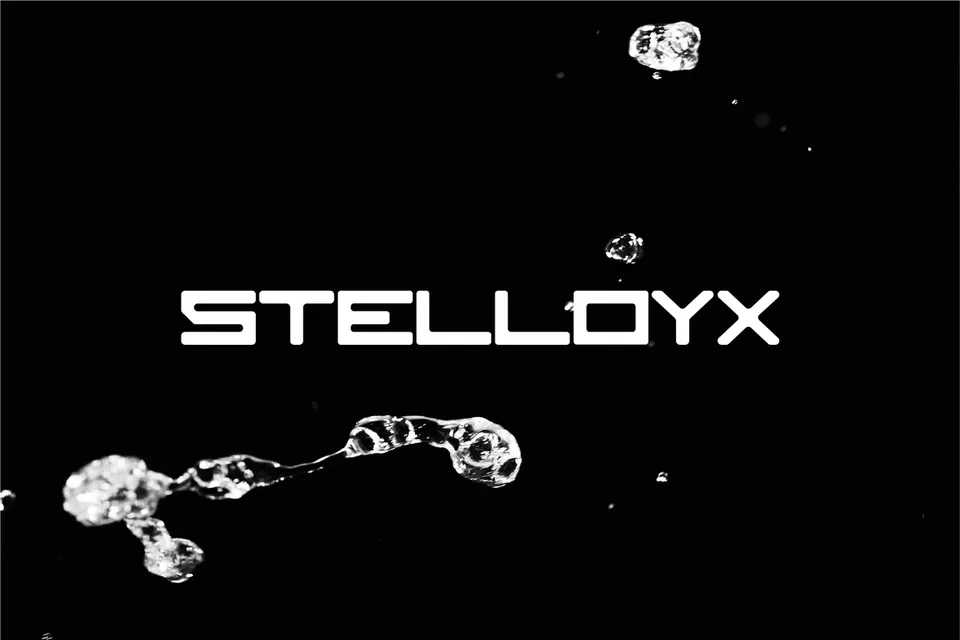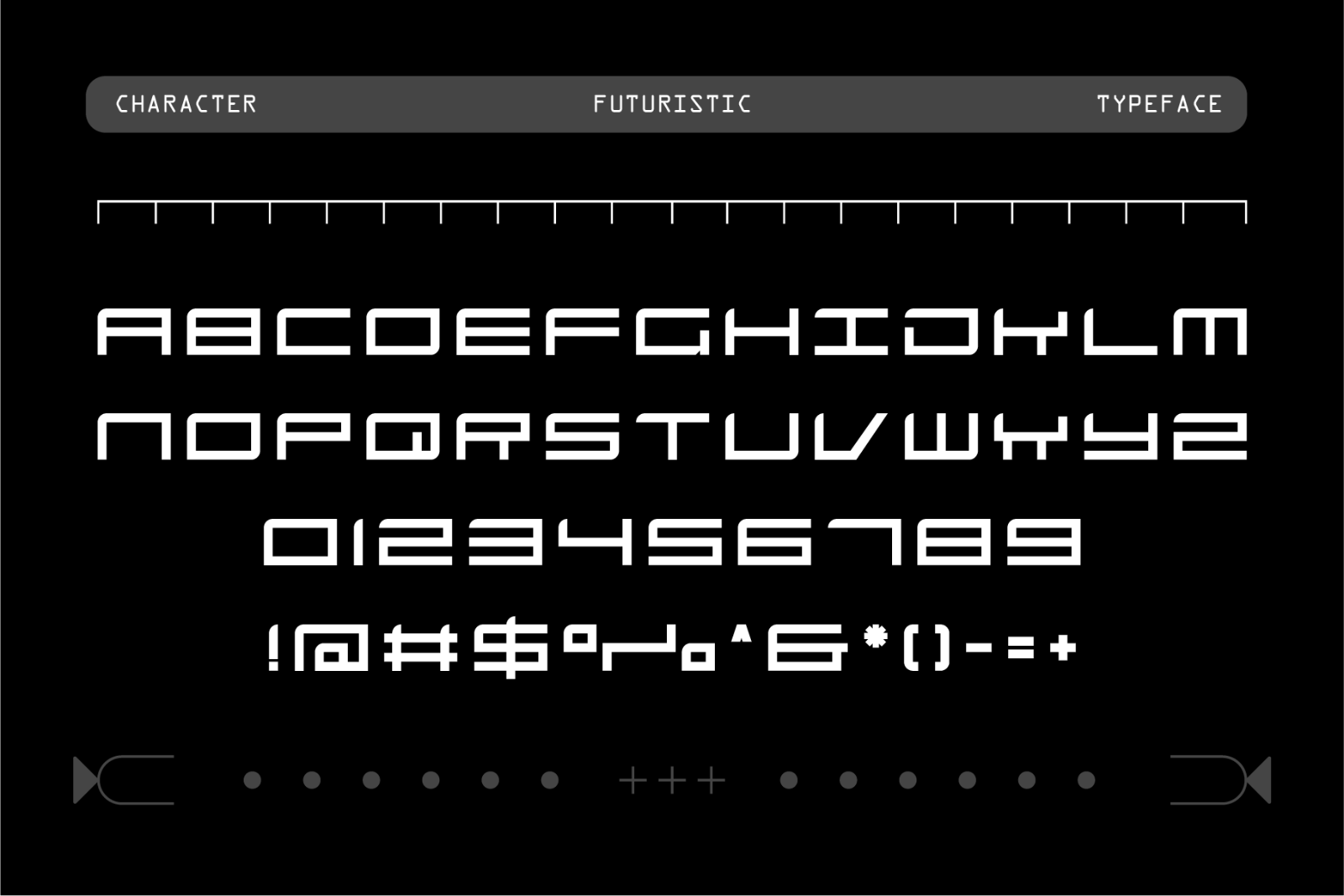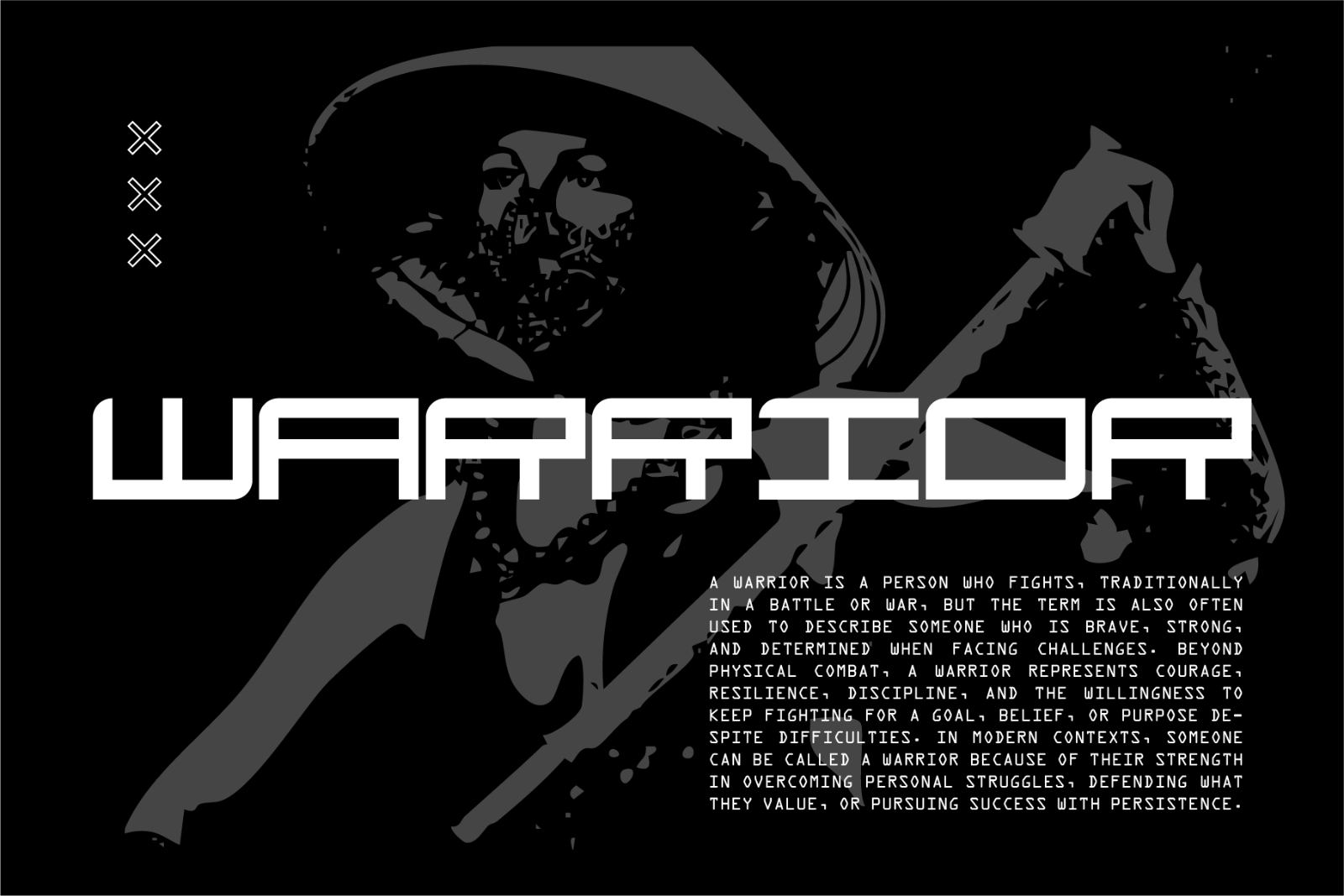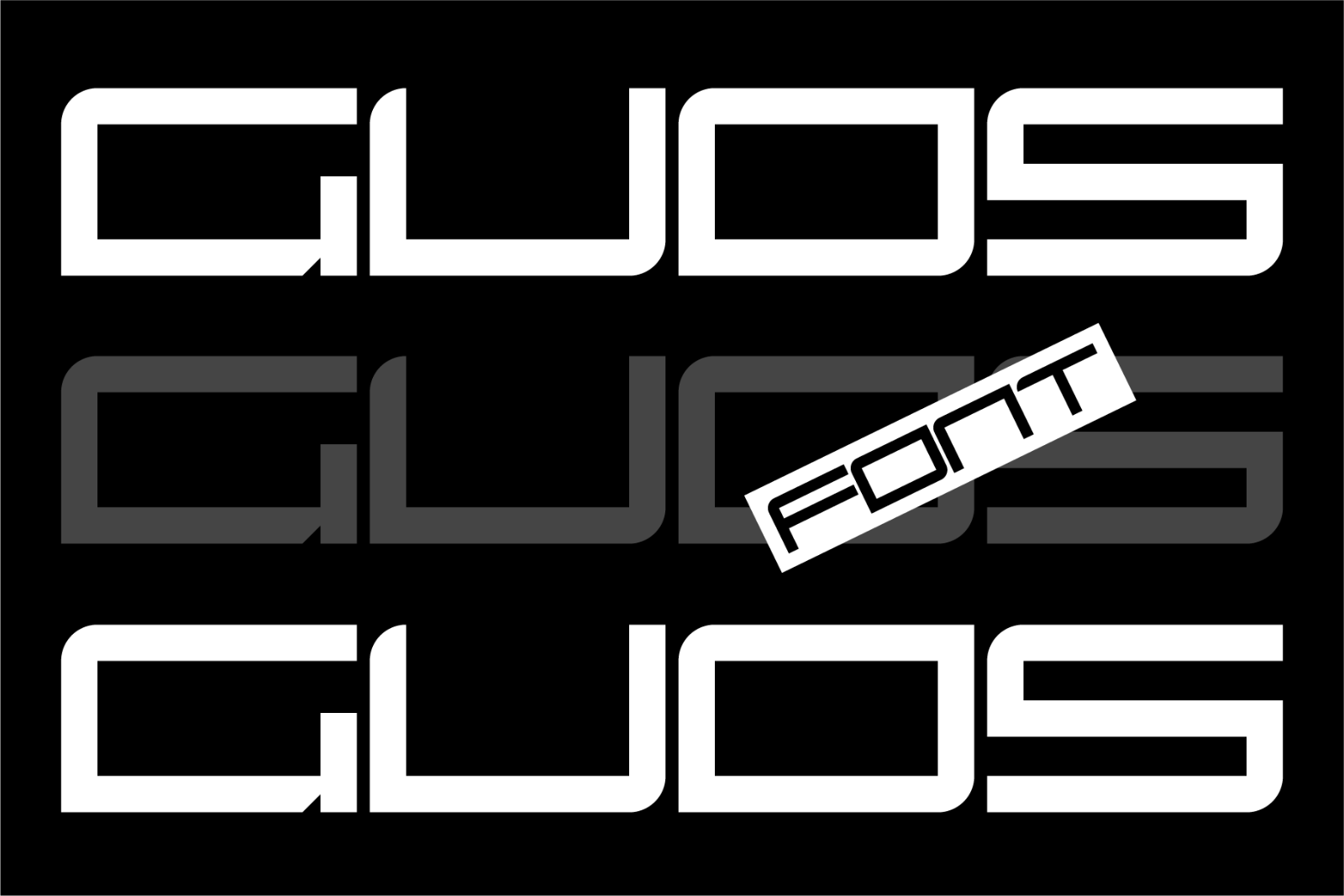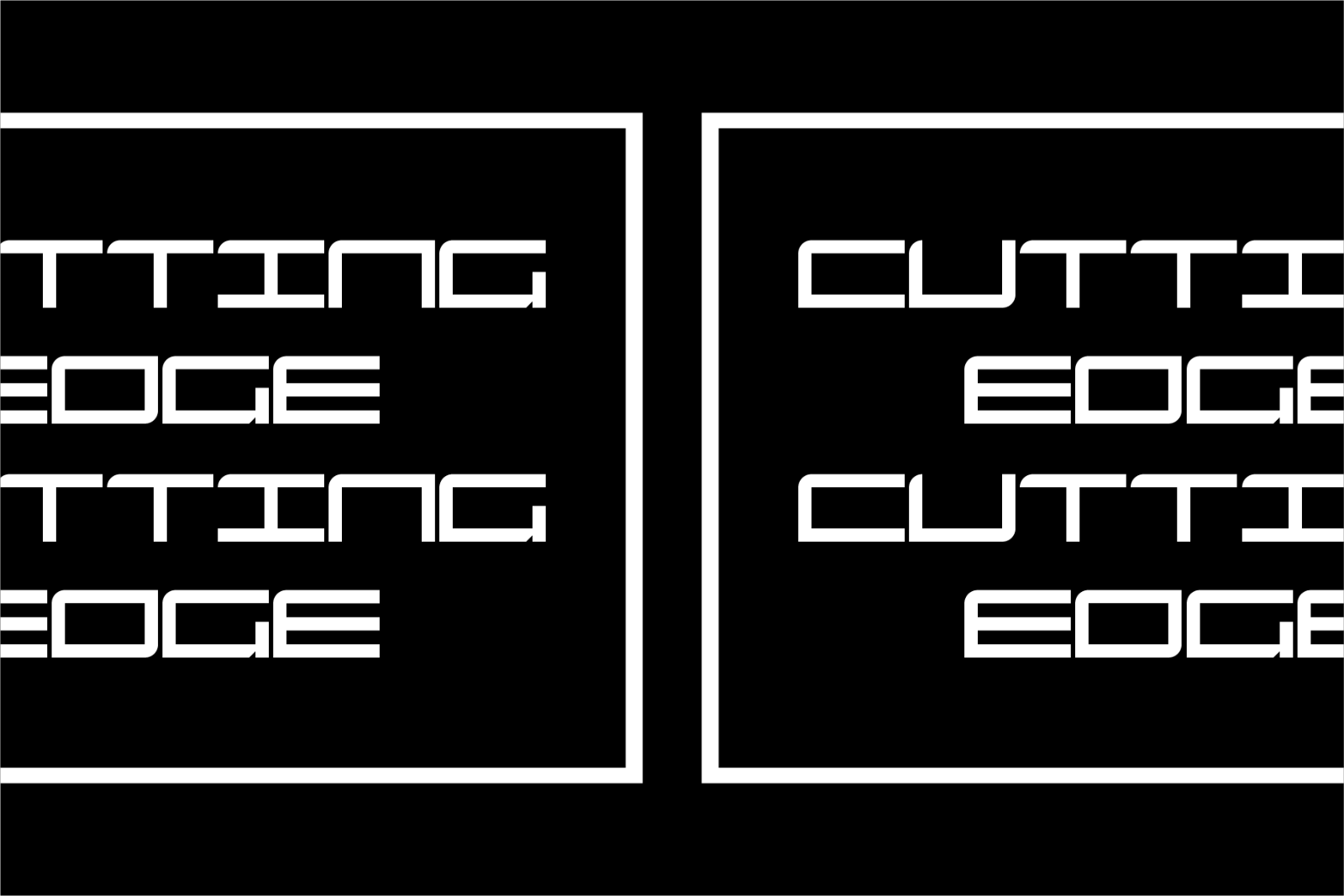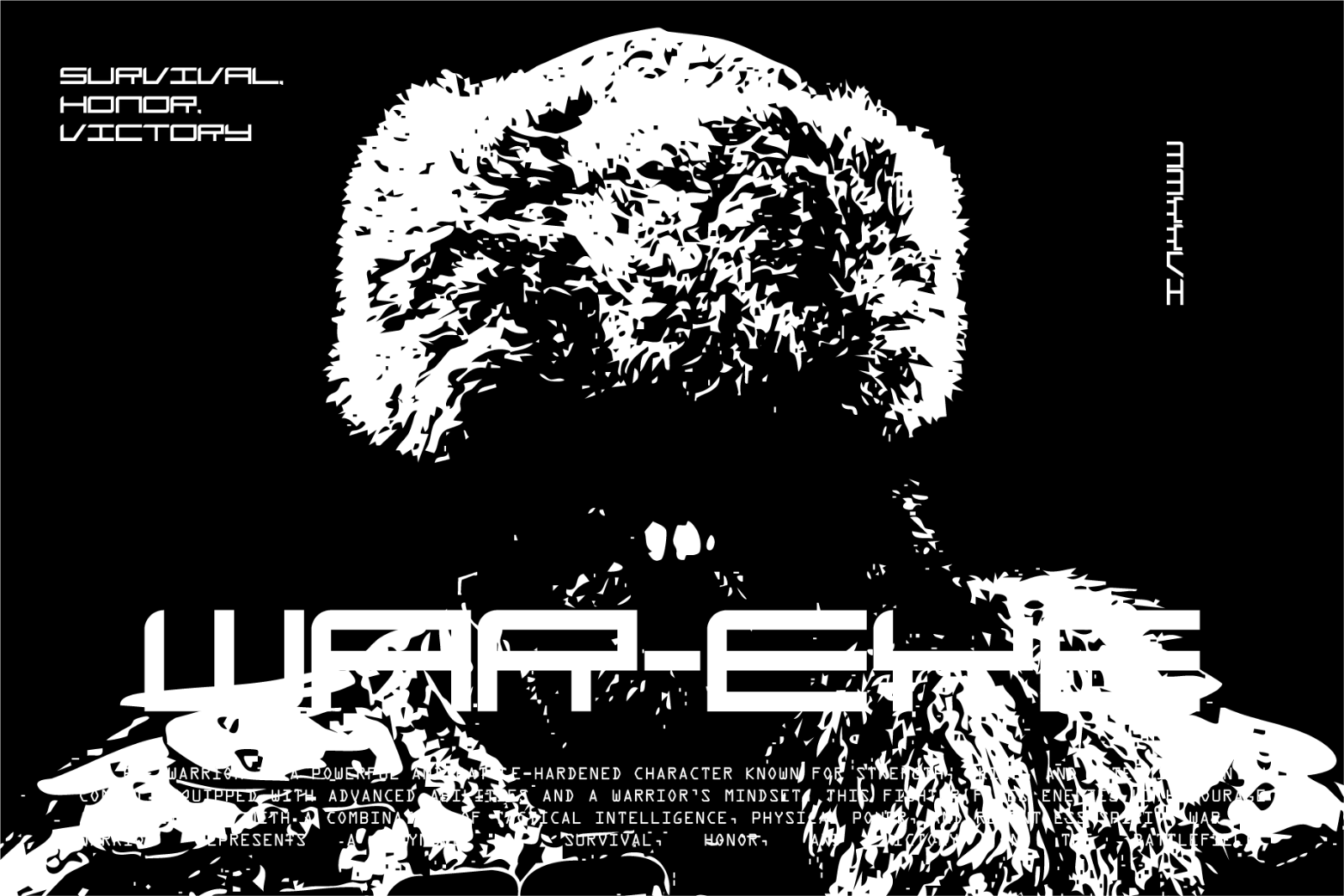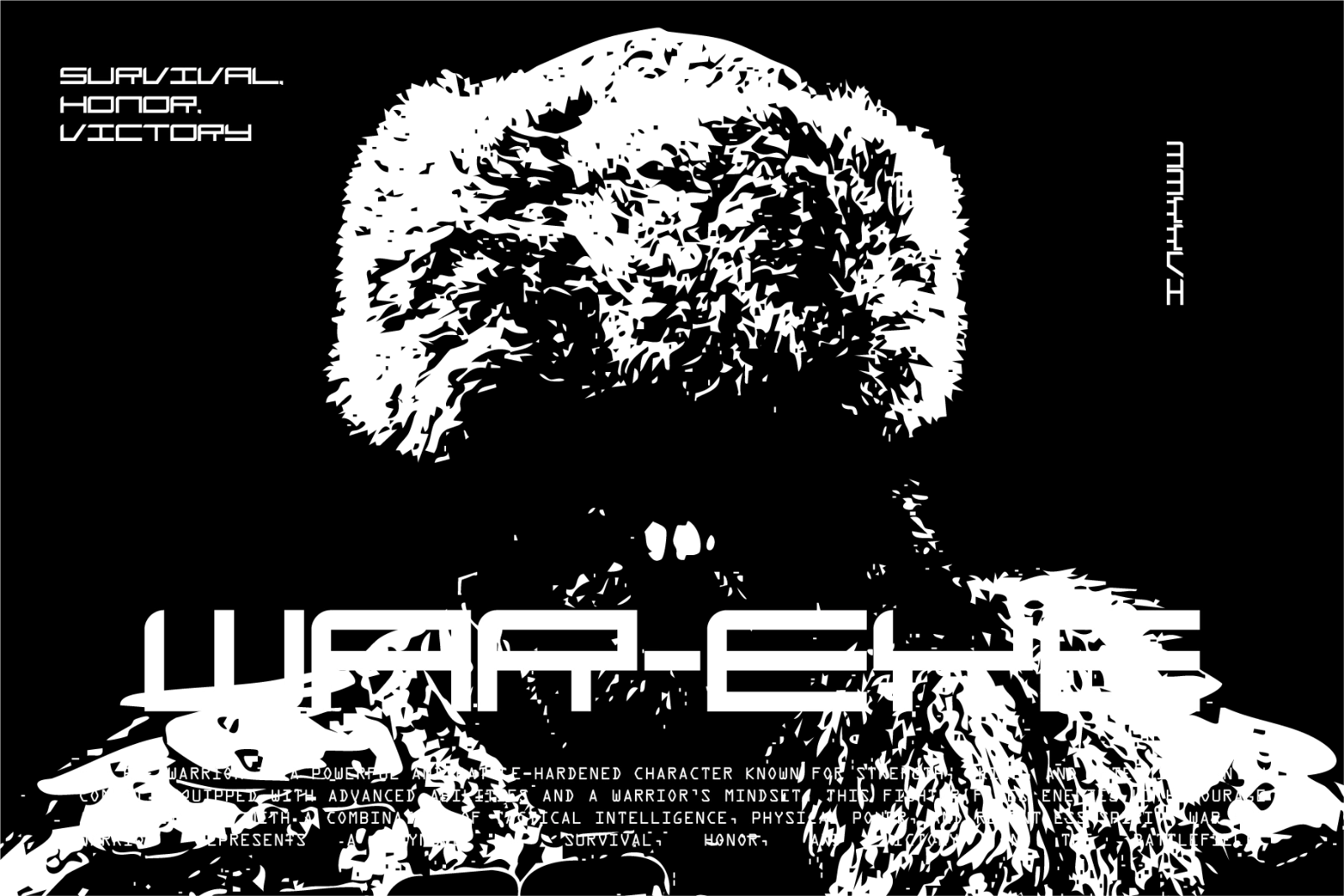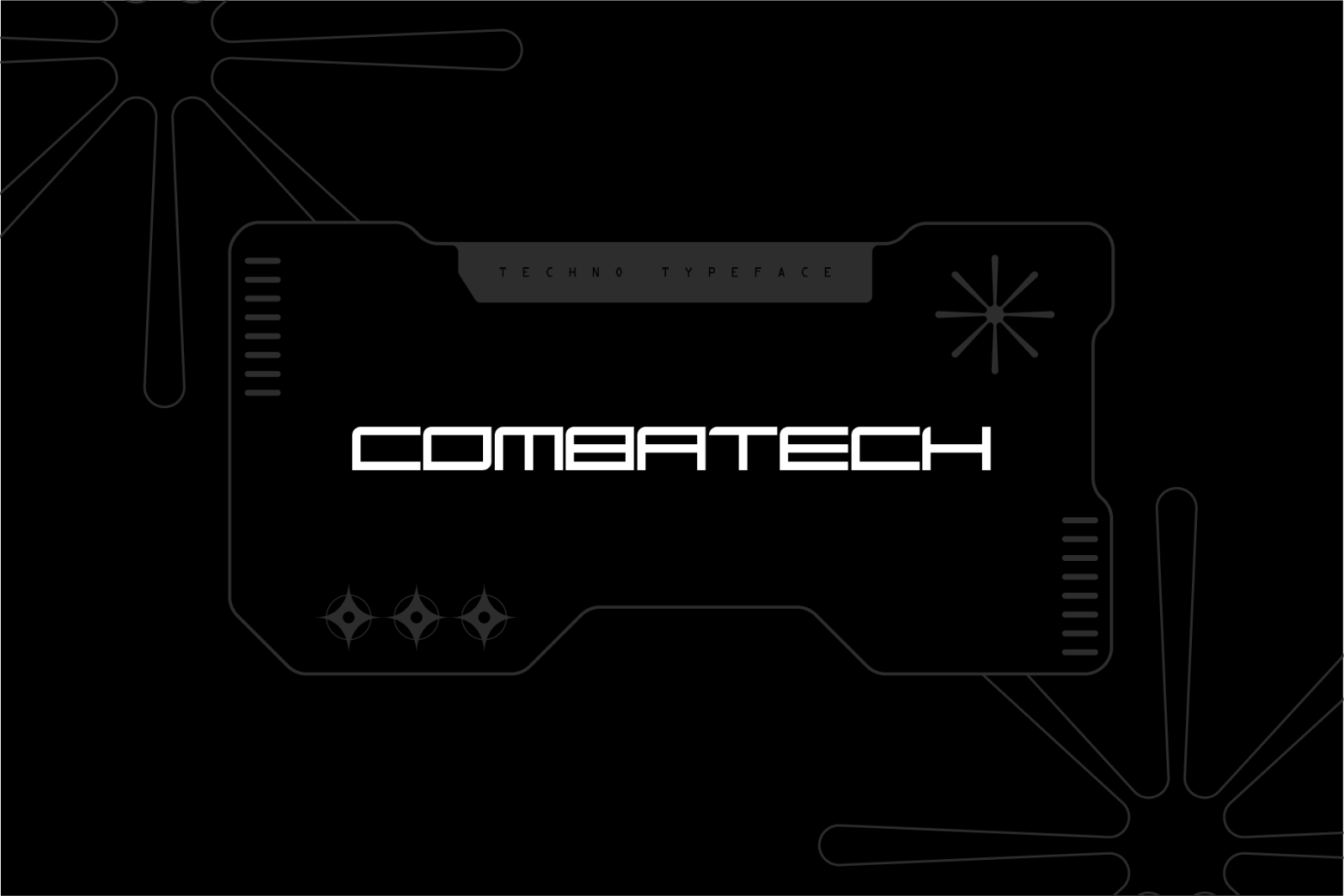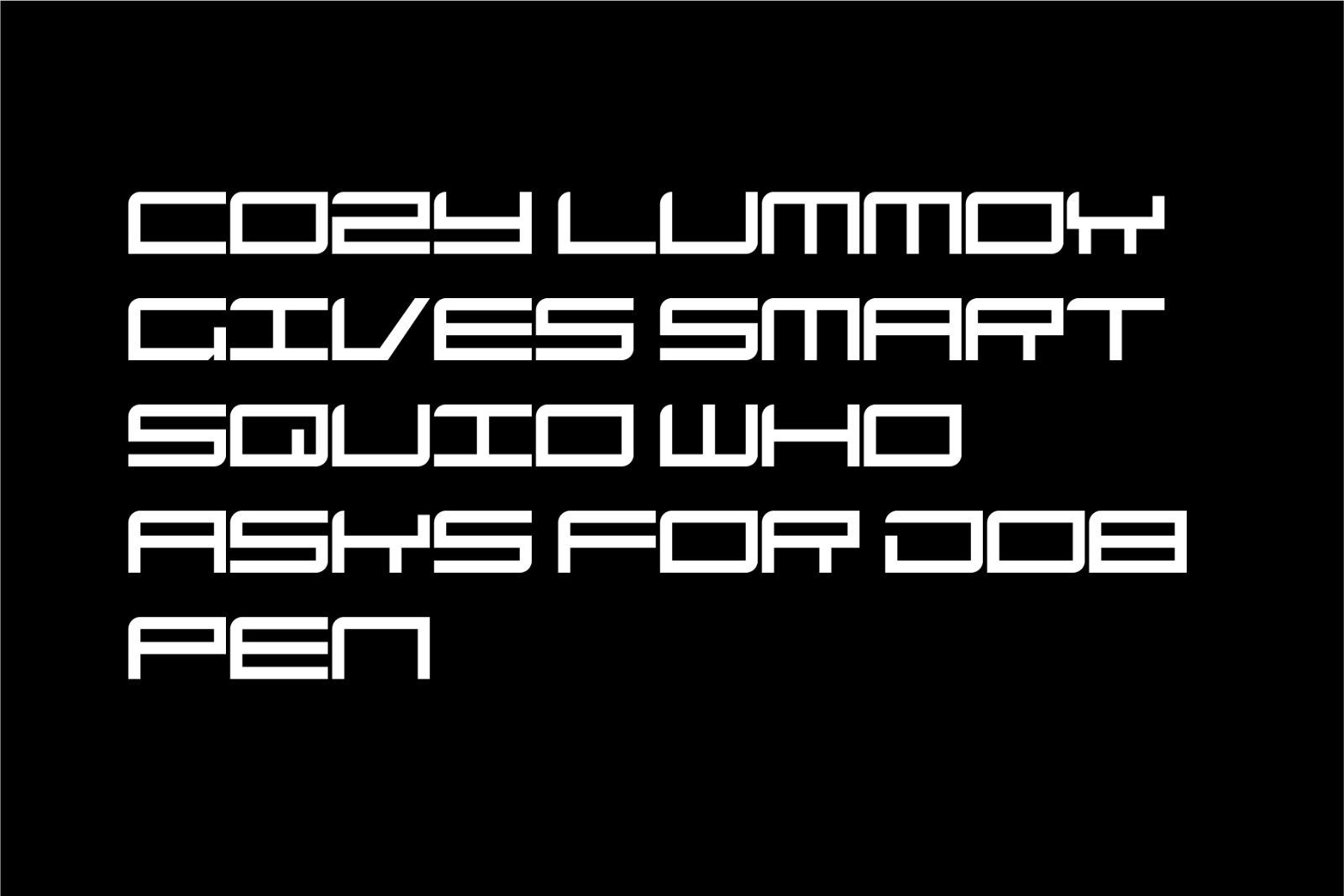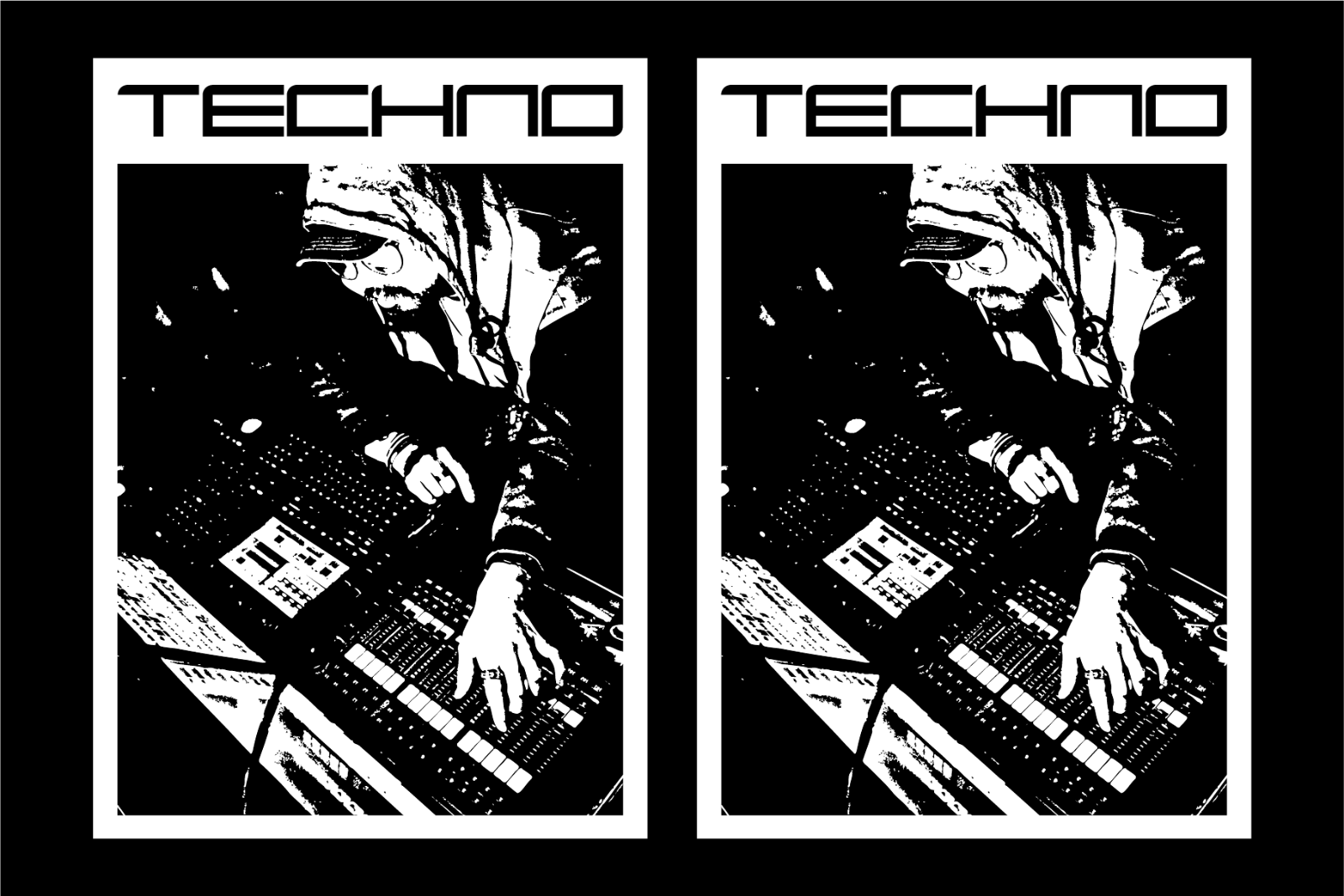
MarketplaceFontsGuds - Futuristic Display Font
Guds is a futuristic typeface designed with a bold and modern aesthetic. It features sleek geometric shapes, sharp details, and a digital-inspired style that creates a strong sense of innovation and technology.